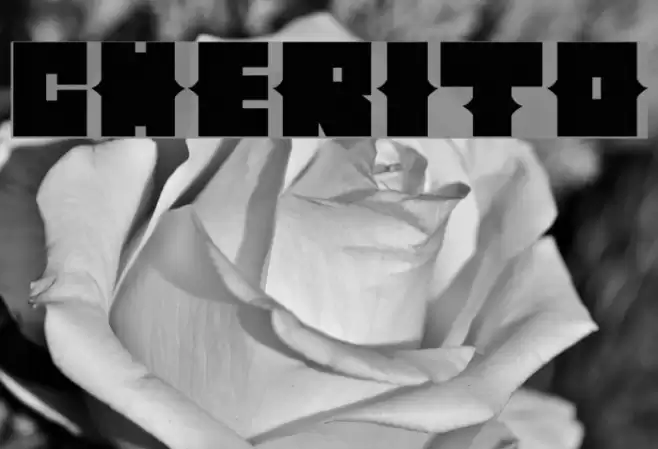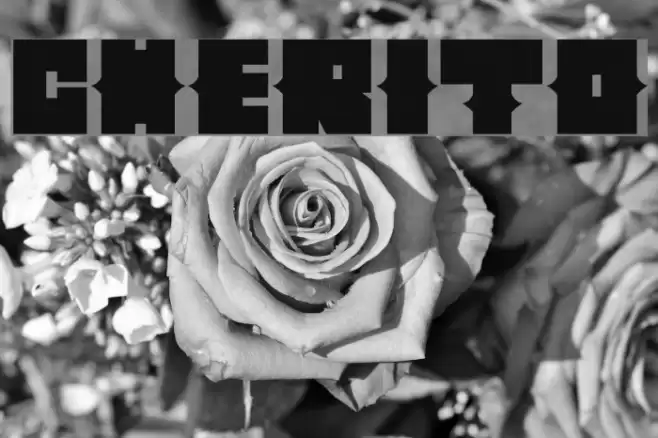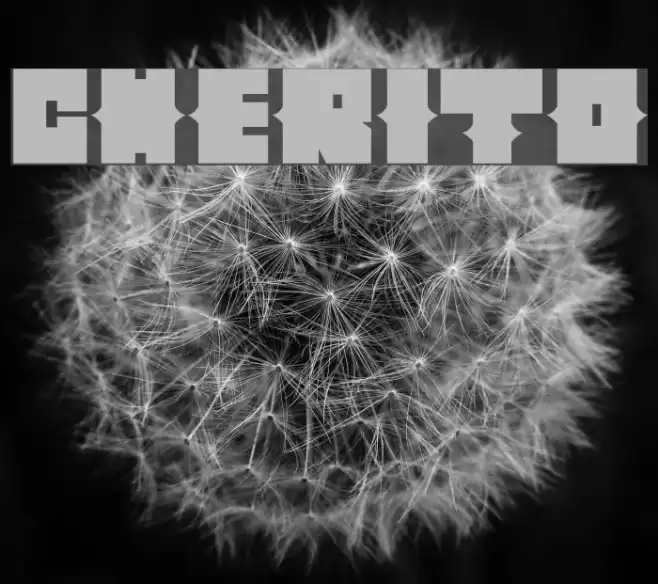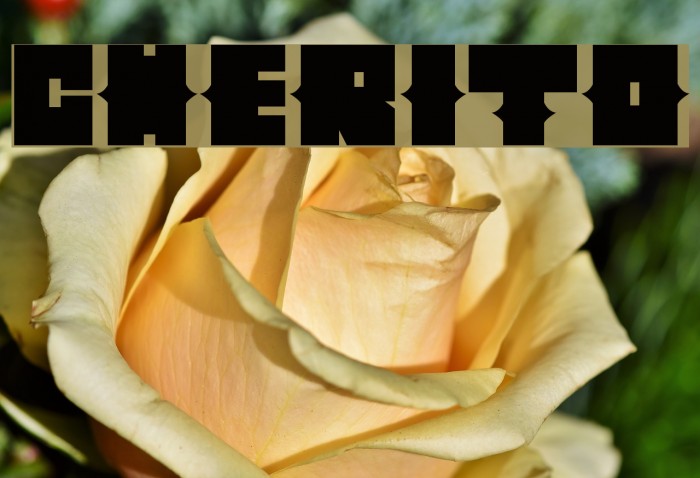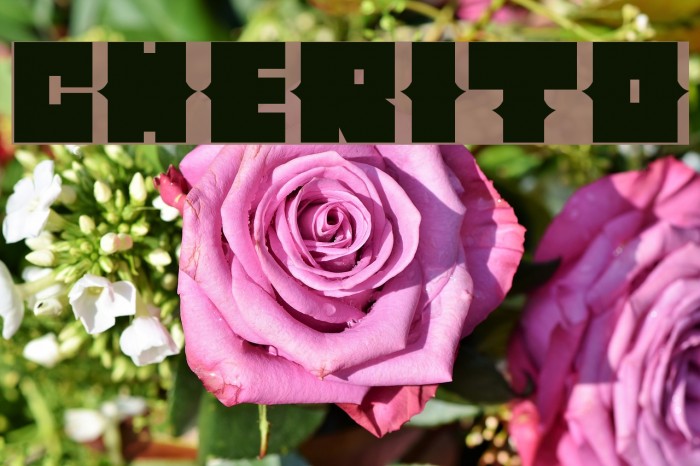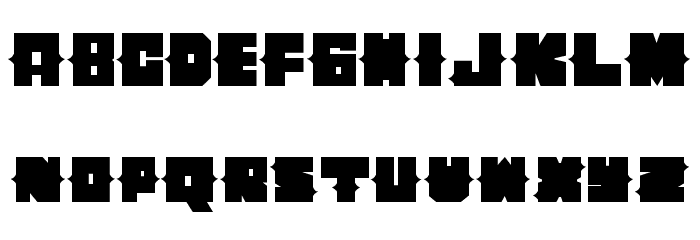
Cherito Font
Cherito Description
This font features a bold and geometric design with a strong, blocky appearance. The characters are constructed with sharp angles and straight lines, giving them a futuristic and industrial feel. The uppercase letters are particularly striking, with a uniform height and width that create a cohesive look. The lowercase letters maintain the same boldness, ensuring consistency across the typeface. The numbers and special characters are equally robust, making them suitable for impactful displays. This font is ideal for projects that require a modern and assertive aesthetic.
A bold, geometric font with a futuristic and industrial style from Uncategorized fonts.
- Proposed Projects: Ideal for branding, posters, headlines, and any design needing a strong, modern impact.